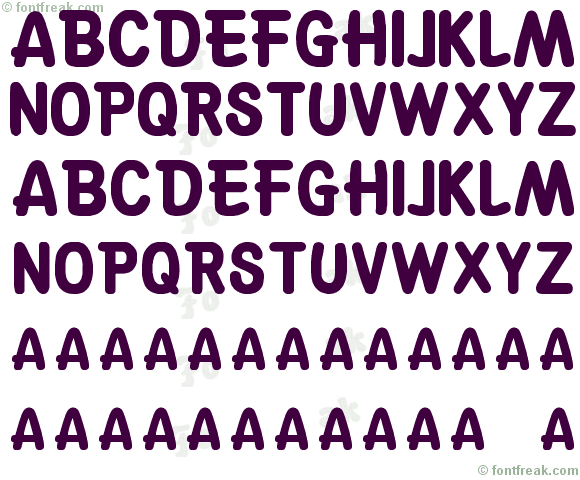
Suske & Wiske
About Suske & Wiske
The Suske & Wiske font by Bjorn is a playful and engaging display typeface that captures the whimsical essence of comic book lettering. Characterized by its bold, rounded forms, this font features a consistent stroke weight that is easily legible while adding a fun flair to any design. The lack of sharp edges and the gentle curves contribute to a friendly and approachable aesthetic, making it ideal for various creative projects. The spacing is well-balanced, ensuring that each letter stands out without feeling cluttered, and the overall visual style is enhanced by its decorative quality, reminiscent of classic comic strips.
This font is particularly suited for a range of specific use cases. It shines in applications such as children's book covers, where its cheerful design can attract young readers. Additionally, it works wonderfully for product packaging aimed at a family audience, as it conveys a sense of joy and playfulness. Event flyers, especially for community gatherings or festivals, can benefit from its lively character, making information easy to read while still capturing attention. Moreover, the Suske & Wiske font can add a unique touch to social media graphics, helping content creators stand out in a crowded digital landscape.
The target audience for this font includes graphic designers seeking to inject personality into their projects, small business owners looking to create memorable branding, and content creators aiming for a distinctive visual style.